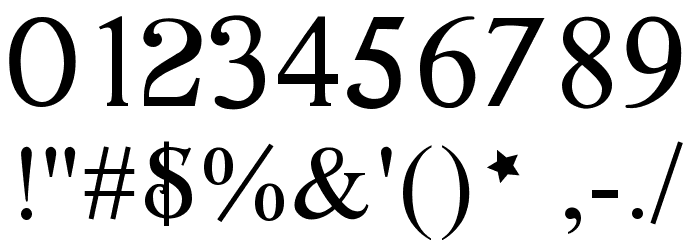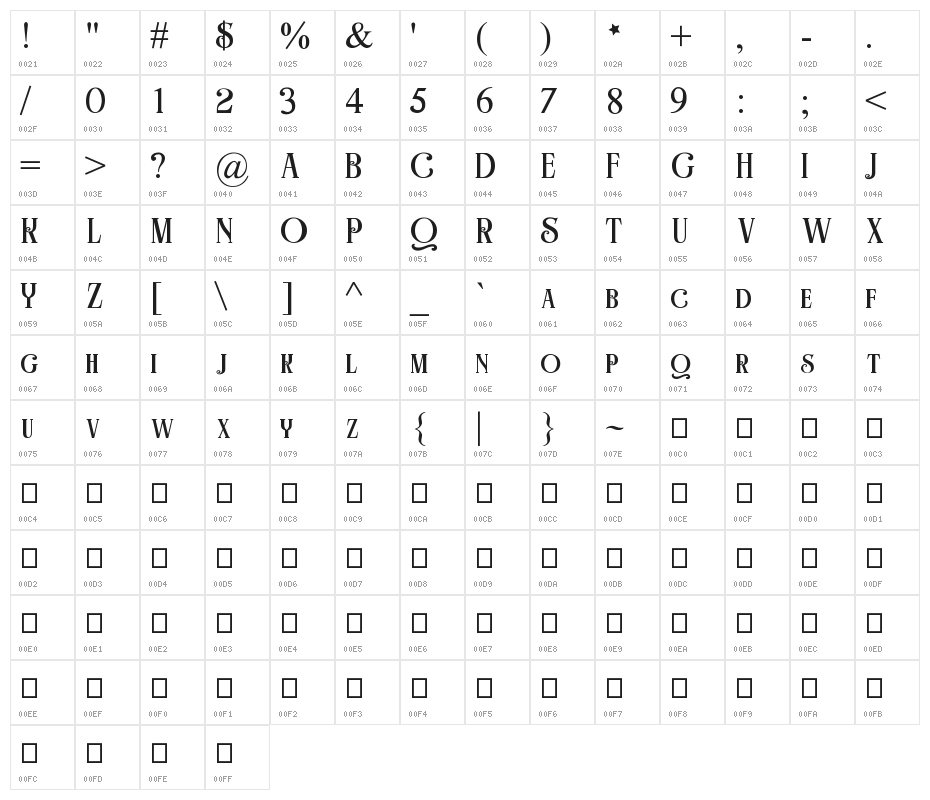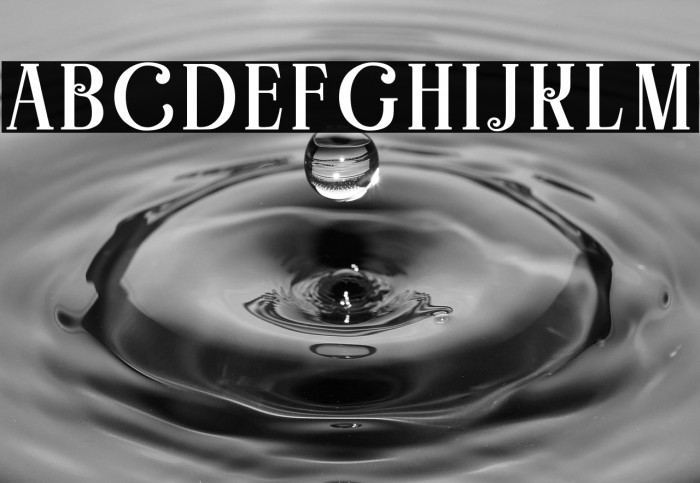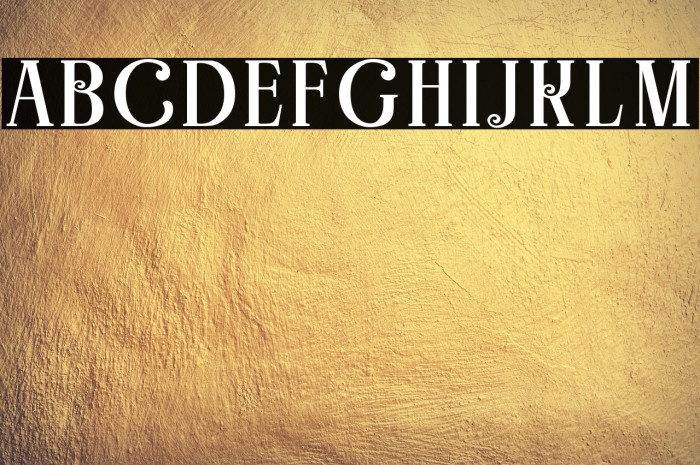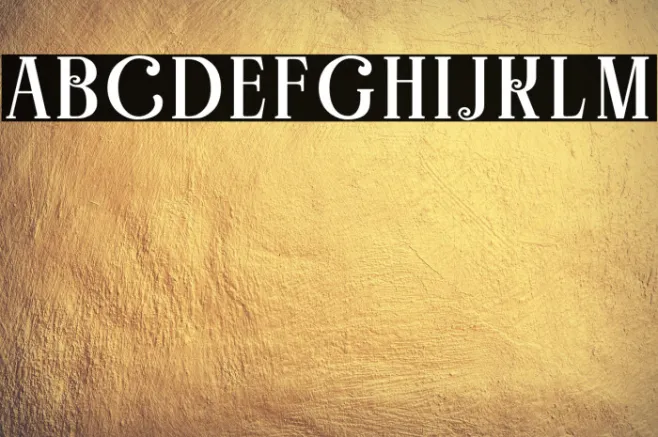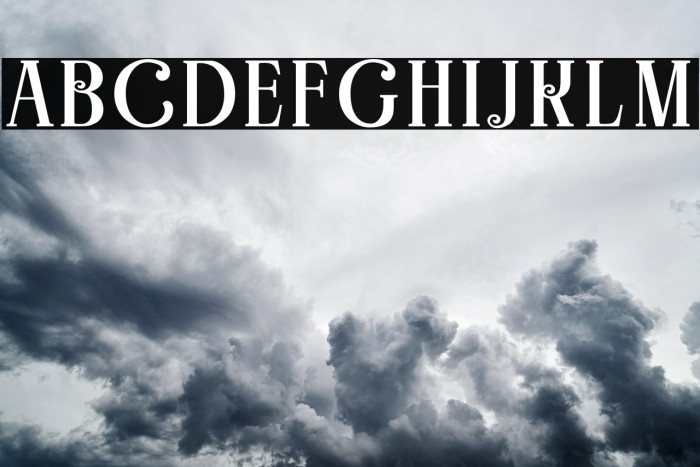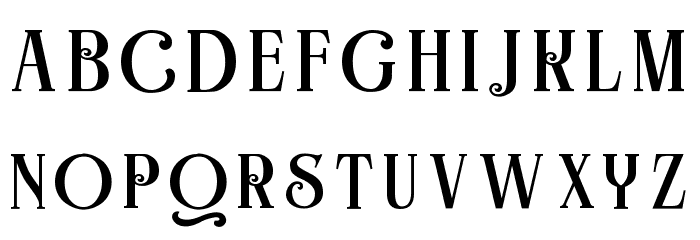
Frosty Font
Frosty Description
This font features a classic serif style with a unique twist, incorporating decorative swirls and flourishes on certain characters, particularly noticeable on letters like 'Q' and 'R'. The uppercase letters are bold and commanding, while the lowercase letters maintain a consistent style that complements the uppercase. The numerals are distinct and easy to read, with a slight decorative flair that aligns with the overall aesthetic. Special characters are well-designed, maintaining the font's elegant and slightly whimsical nature. This font is suitable for projects that require a touch of sophistication and creativity.
| Overall Style | Classic, Decorative |
| Proposed Projects | Ideal for wedding invitations, branding, book covers, and decorative signage. |